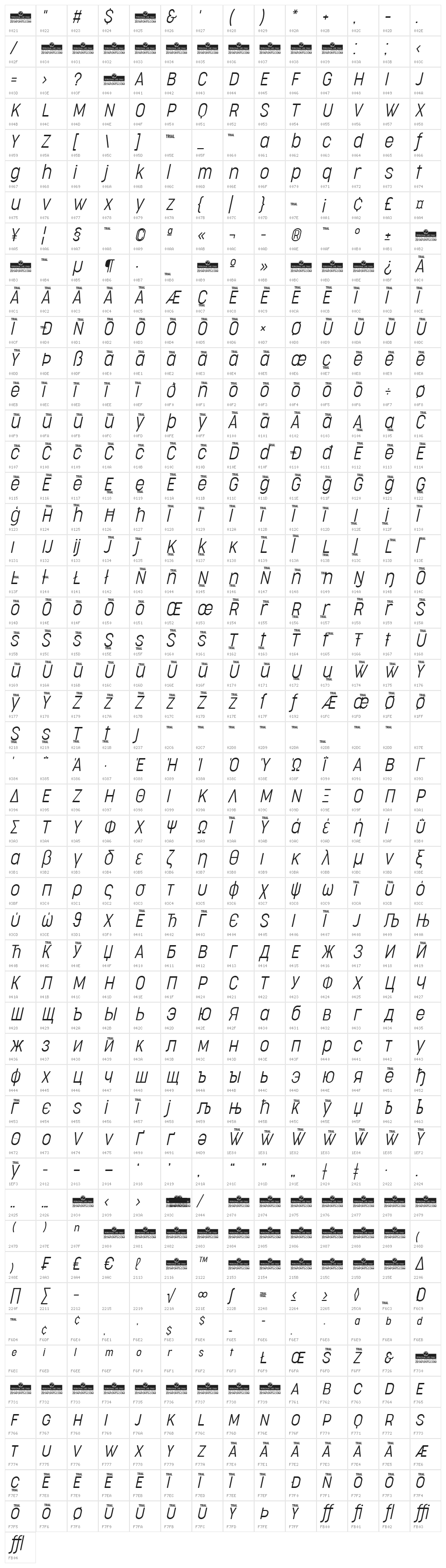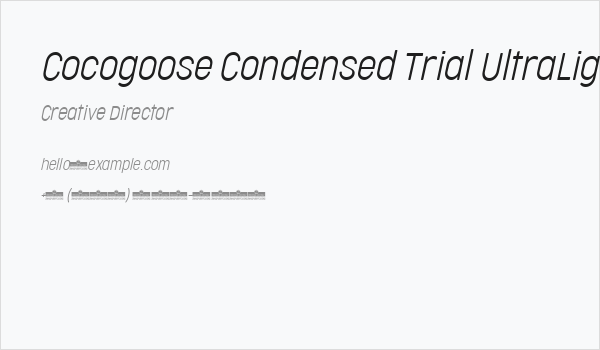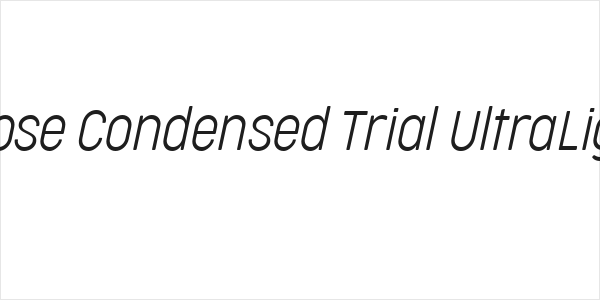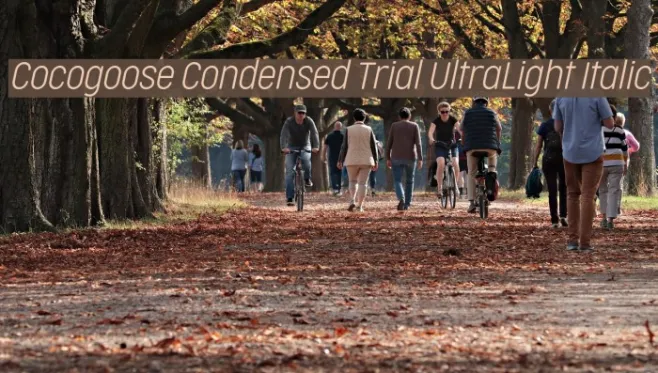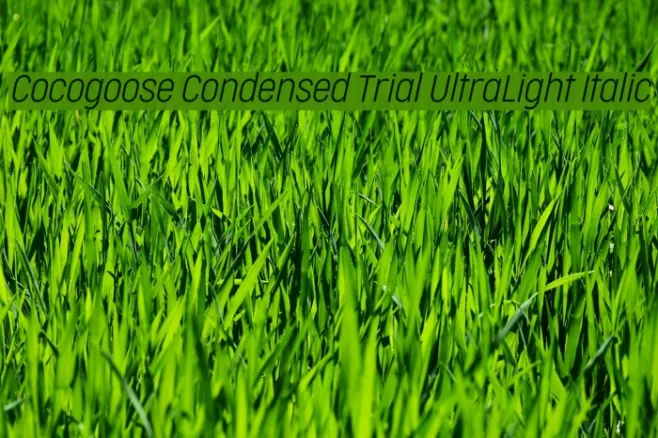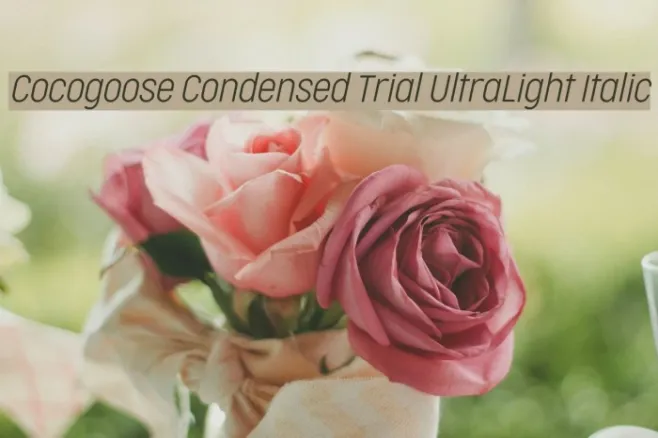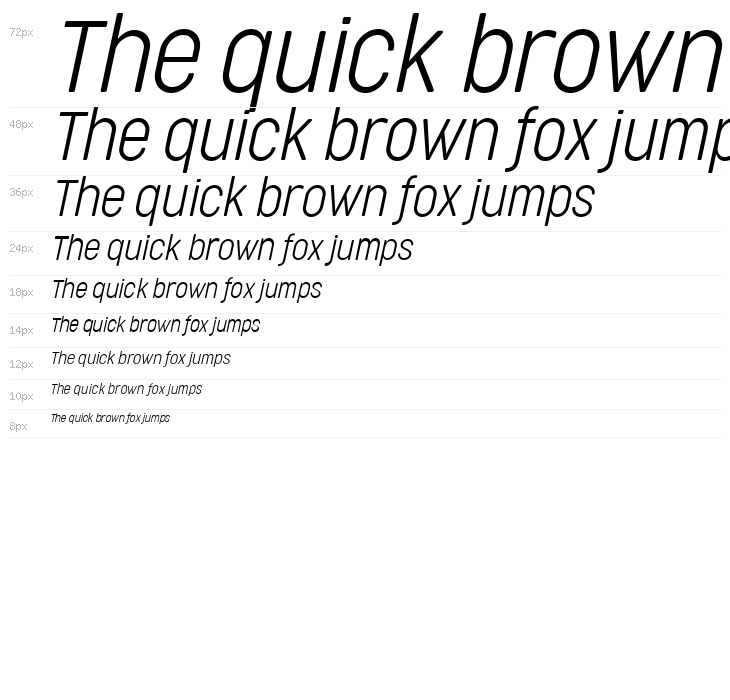
Cocogoose Condensed Trial UltraLight Italic Font
Cocogoose Condensed Trial UltraLight Italic Description
This font features a sleek and modern design with a condensed structure, giving it a streamlined appearance. The ultra-light weight adds an elegant touch, making it suitable for contemporary designs. Its italic style introduces a sense of motion and dynamism, enhancing its visual appeal. The characters are well-defined with a consistent stroke width, contributing to its clean and professional look. The font maintains a balanced character spacing, ensuring readability while preserving its stylish aesthetic.
| Proposed Projects | Ideal for fashion magazines, modern branding, tech startups, and minimalist design projects. |